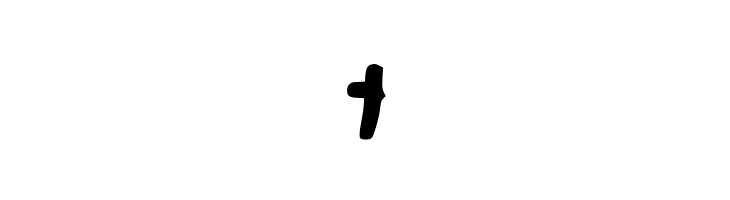
A bold, italicized font with sharp, angular, calligraphic influences.
A classic italic font with elegant curves and sharp serifs, reminiscent of traditional calligraphy.
A blackletter font with sharp, angular strokes and a medieval aesthetic.
A modern, geometric sans-serif font with clean lines and a minimalist style.
A bold, decorative serif font with a shadow effect for impactful designs.
A playful, hand-drawn font with a cartoonish, nostalgic style.
A vintage, hand-drawn font with irregular, organic shapes and a mysterious vibe.
A hand-drawn, vintage-style font with irregular, organic shapes and dynamic strokes.
A bold, flowing script font with elegant curves and a modern classic feel.
A bold, playful font with rounded, chunky characters and a retro vibe.
A whimsical, hand-drawn font with playful curves and artistic flair.
A bold, modern font with thick, blocky letters for strong visual impact.
A bold, blocky font with a strong, geometric style.
A bold, serif font with dramatic, angular strokes and sharp serifs.
A bold, dynamic font with angular strokes and a commanding presence.
A casual, handwritten-style font with fluid, slightly irregular characters.
A whimsical handwritten font with tall, narrow letterforms and playful strokes.
A decorative and whimsical font with intricate curves and flourishes.
A bold, decorative font with artistic curves and flourishes.
A bold, italicized decorative font with high contrast and pronounced serifs.
An artistic italic font with decorative curves and elegant style.
A playful, casual handwritten font with smooth, consistent strokes.
A bold, geometric font with a modern and edgy style.
A modern, clean sans-serif font with a slightly condensed structure.
A modern, geometric sans-serif font with uniform strokes and excellent readability.